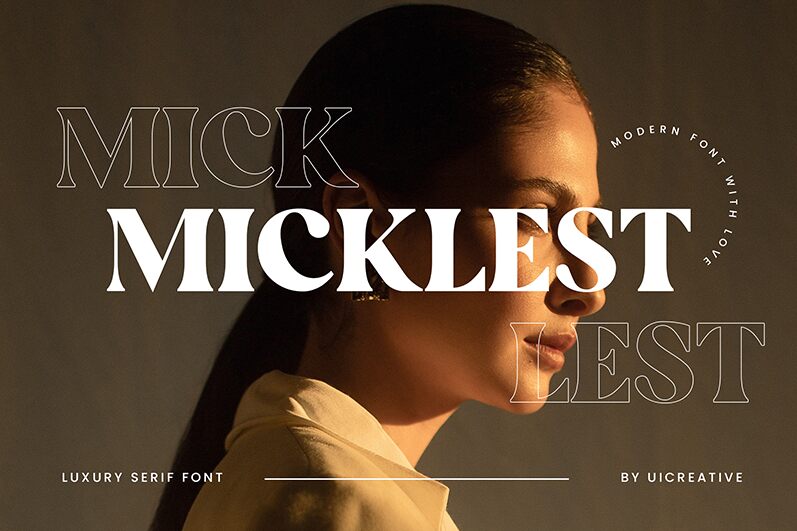
MICKLEST
Micklest, crafted by UI Creative, stands as a bold serif font that exudes elegance and strength. Its commanding presence is characterized by robust strokes and refined serifs that merge classical sophistication with modern flair. The striking boldness of Micklest makes it ideal for headlines, logos, and branding projects where impact is paramount. Its sophisticated curves and sturdy lines ensure readability while adding a touch of grandeur to any design piece.
Perfect for print media, editorial layouts, or luxury product packaging, Micklest effortlessly commands attention. This font's unique blend of traditional serif charm with contemporary boldness offers versatility, making it a stellar choice for designers seeking to infuse their work with both authority and style.